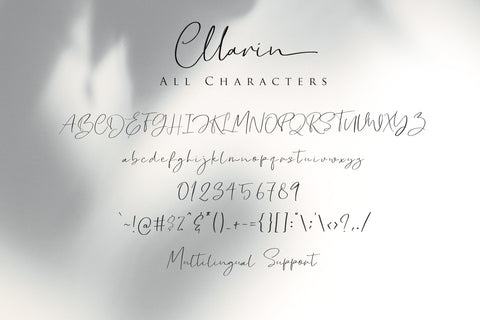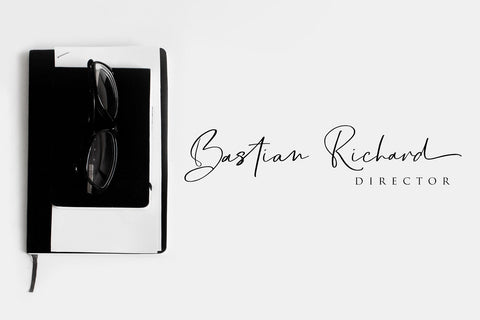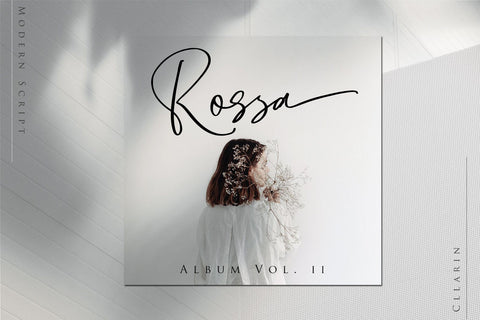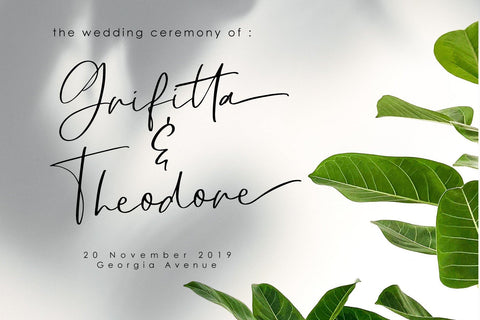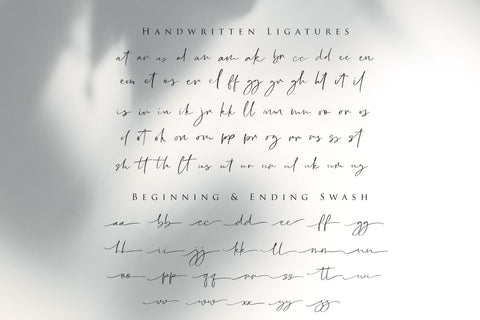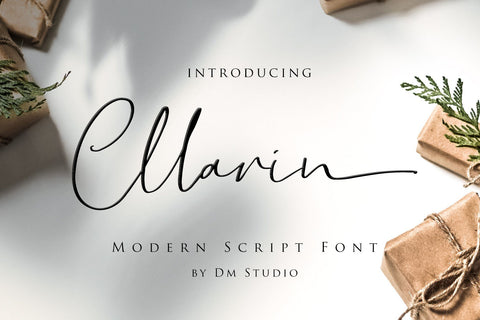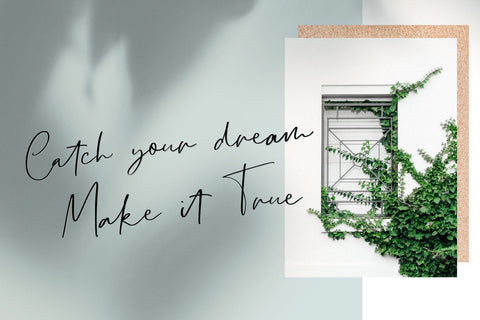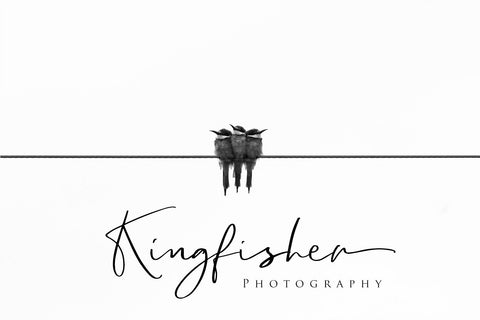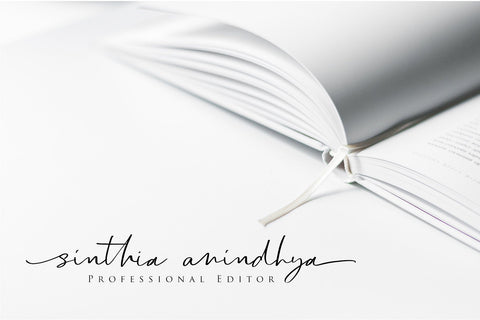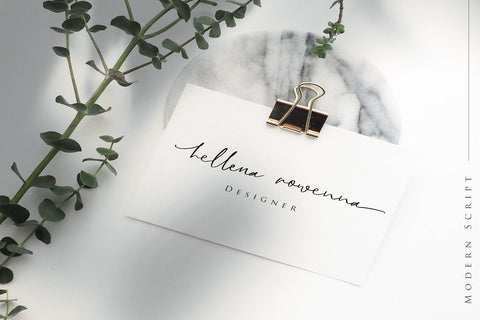
Cllarin - Modern Script Font
Cllarin Modern Script Font
Introducing, Cllarin. It's the lovely, modern, versatile and artsy modern font. Suitable for any kind of need, for your business stuffs, promotions, crafting, template, header, quotes, scrapbook, social media posts and much more! Get the catchy look by adding the initial or ending alternative swashes, and also handwritten ligatures.
- Standard Character Set, including Uppercase, lowercase, numeric and symbols
- Multilingual support
- 59 ligatures
- lowercase initial and ending alternative swashes